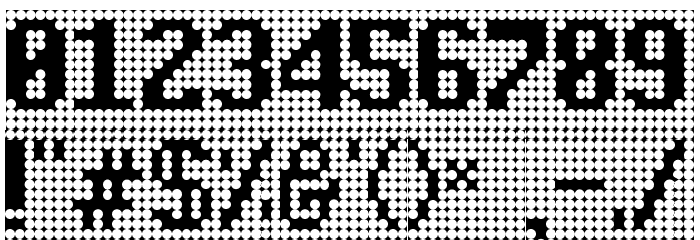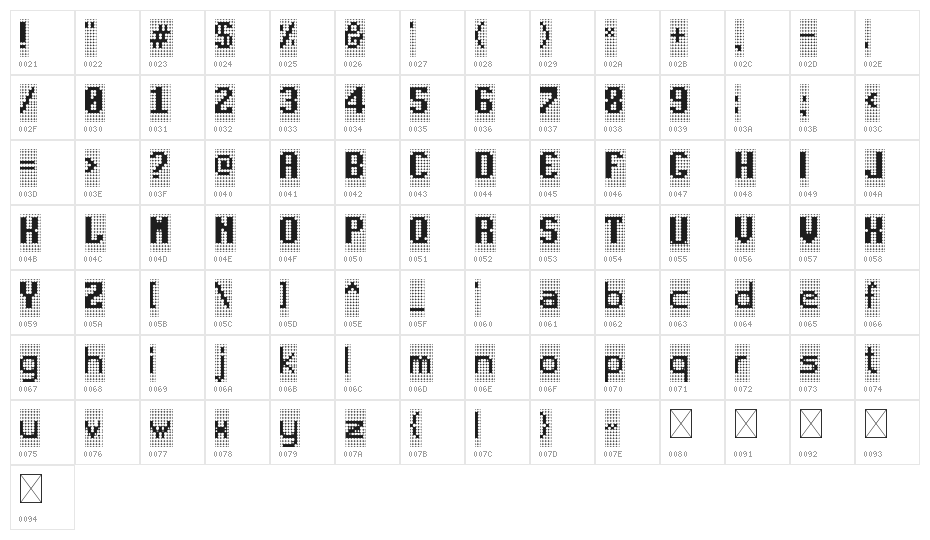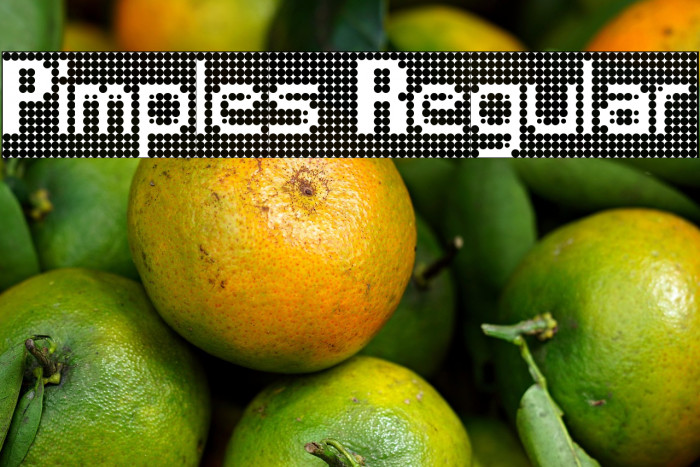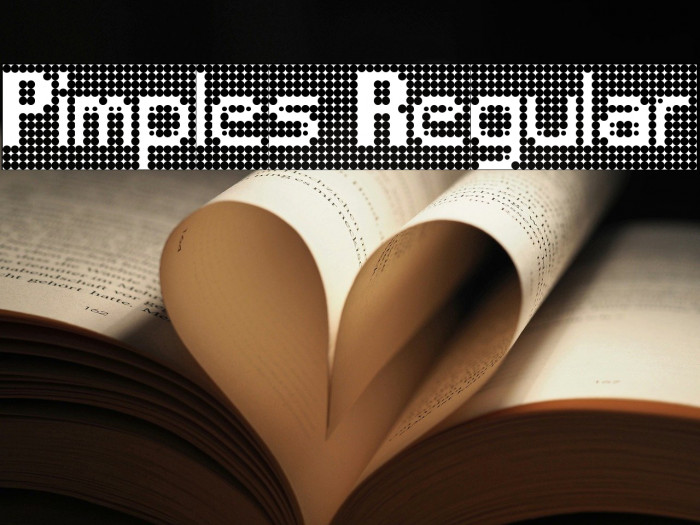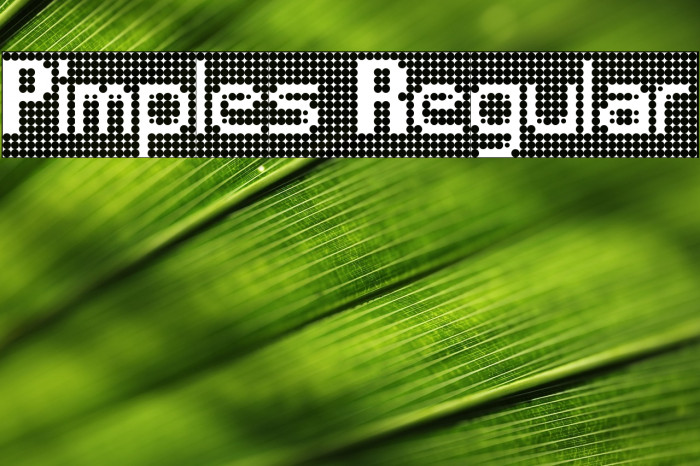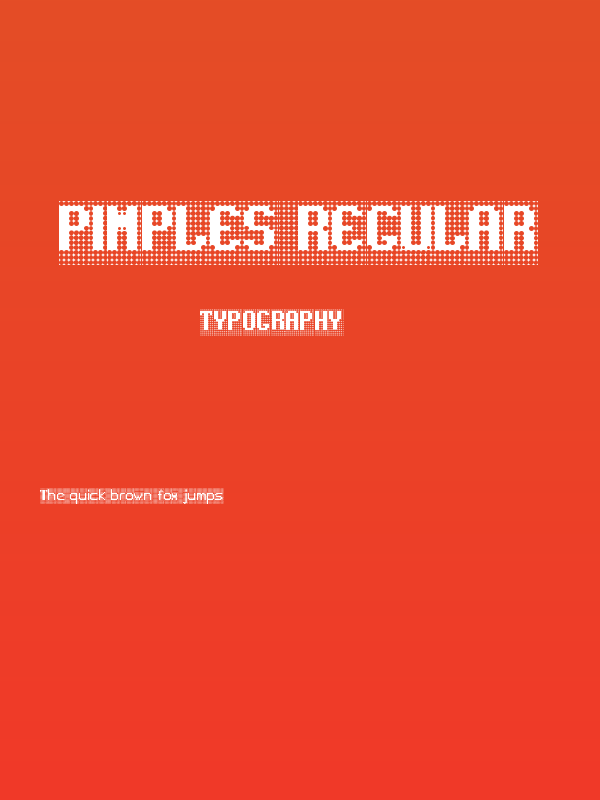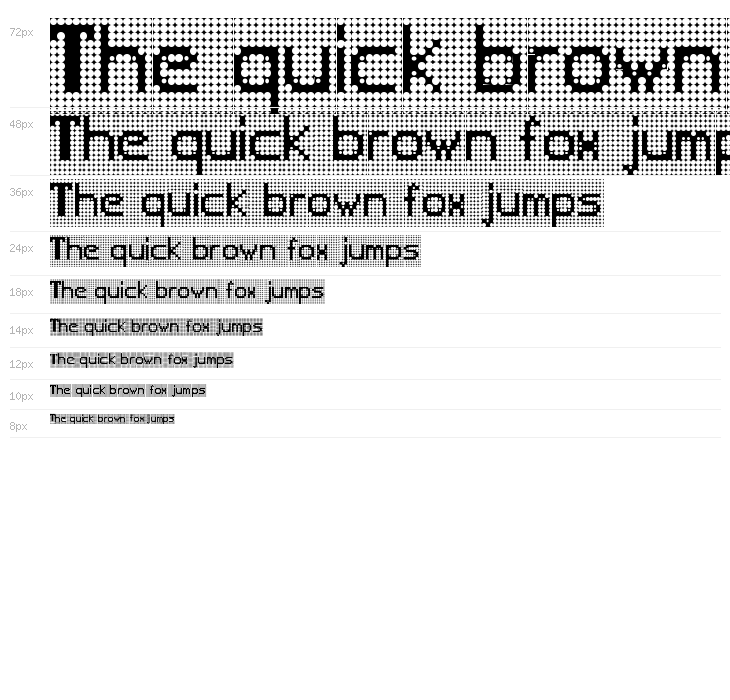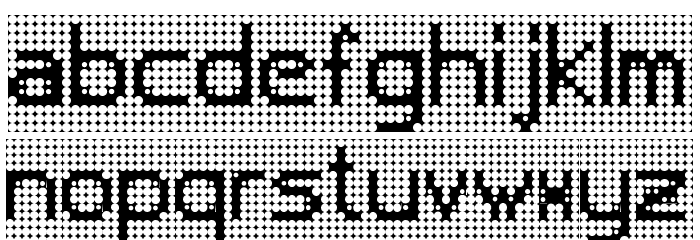
Pimples Regular Font
Pimples Regular Description
This font features a unique dotted pattern that forms each character, creating a visually striking and modern appearance. The letters are composed of evenly spaced dots, giving them a pixelated look that is both playful and futuristic. The uppercase and lowercase letters maintain a consistent style, with rounded edges and a uniform dot size. Numbers and special characters follow the same design principle, ensuring a cohesive look across all elements. This font's distinct style makes it ideal for creative projects that require a bold and unconventional typeface.
| Proposed Projects | Ideal for digital art, posters, video game graphics, and creative branding. |